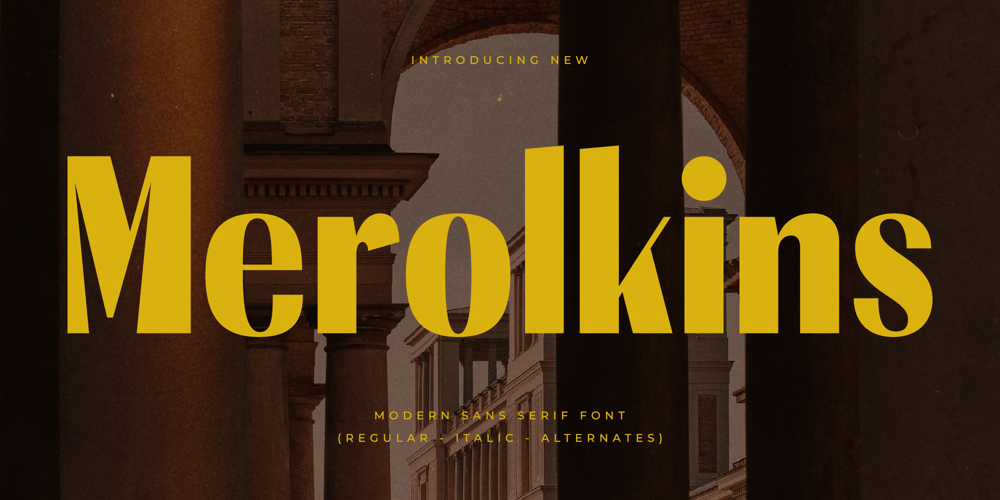
Merolkins Font Family was designed by Heru Utama Putra and published by Letterena Studios. Merolkins contains 2 styles and family package options. Merolkins is an elegant serif font, that features a very delicate and classy look. Not too thin and not too thick, balanced and varied, Florania was designed to enhance the beauty of your projects. This typeface is perfect for an elegant & luxury logo, book or movie title design, fashion brand, magazine, clothes, lettering, quotes, and so much more.